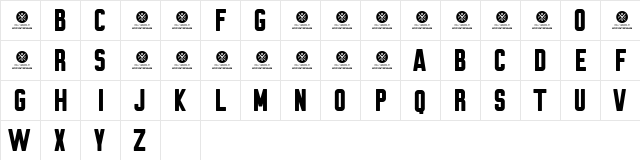
Brewmaster Gothic Round Regular
Design Context for Brewmaster Gothic Round Typeface
Brewmaster Gothic Round has the quiet confidence of well-executed sans-serif typography: versatile, unobtrusive, and dependable at any size.
Font Pairing: Works well alongside a characterful serif or display font that can carry the expressive load while Brewmaster Gothic Round handles the functional copy.
Pro Tip: Use Brewmaster Gothic Round for UI labels, navigation, and short-form body copy where clean legibility is the priority.